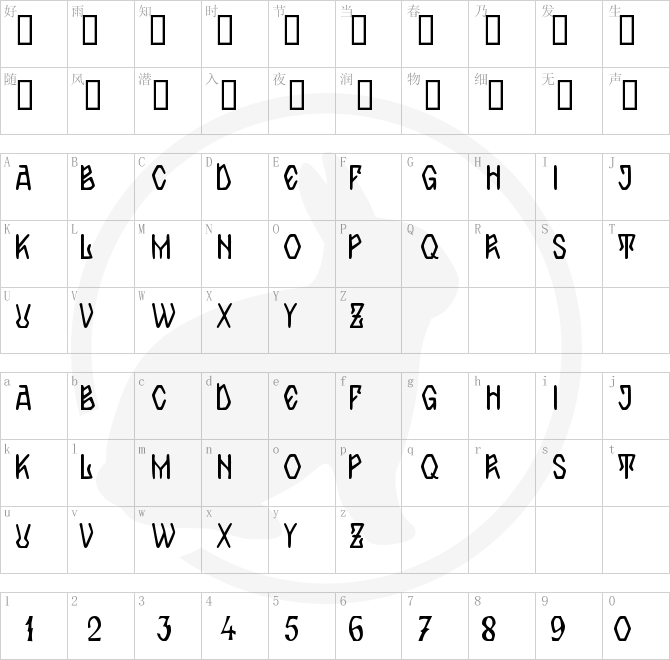
- Font Name:Zamolxis IV
Zamolxis-IV.ttf is a very beautiful artistic font, Zamolxis-IV.ttf is widely used in the design and printing of various books and pictures,Zamolxis-IV.ttf has a strong visual impact,Zamolxis-IV.ttf is a commonly used font in newspapers, magazines and books, and is used in posters, e-commerce Poster design, store design, logo design, font design and other fields.Zamolxis-IV.